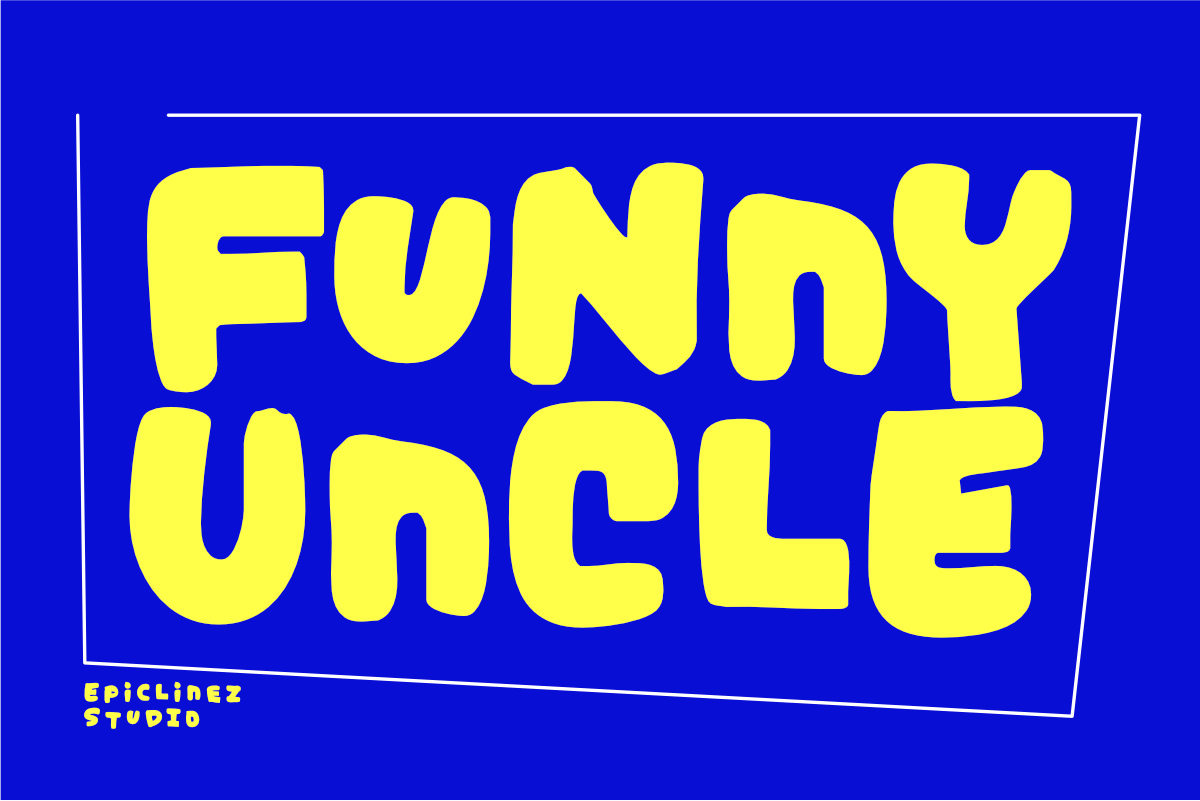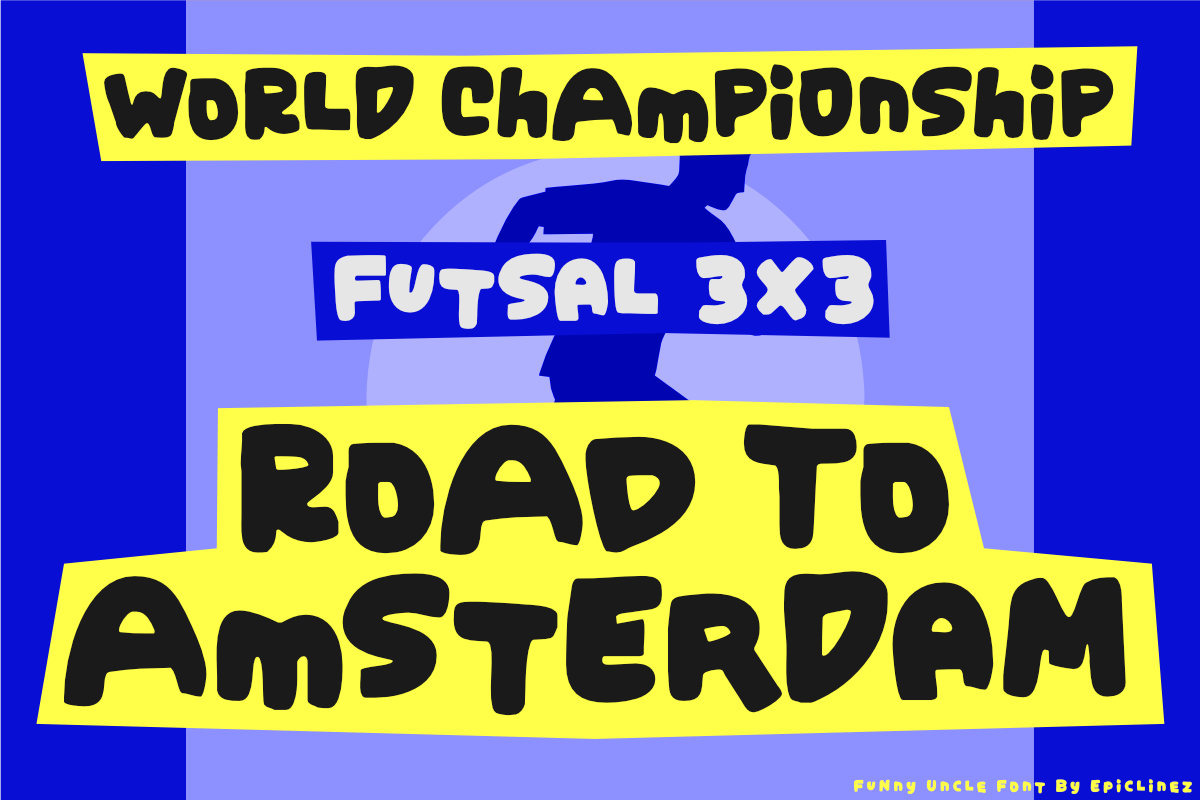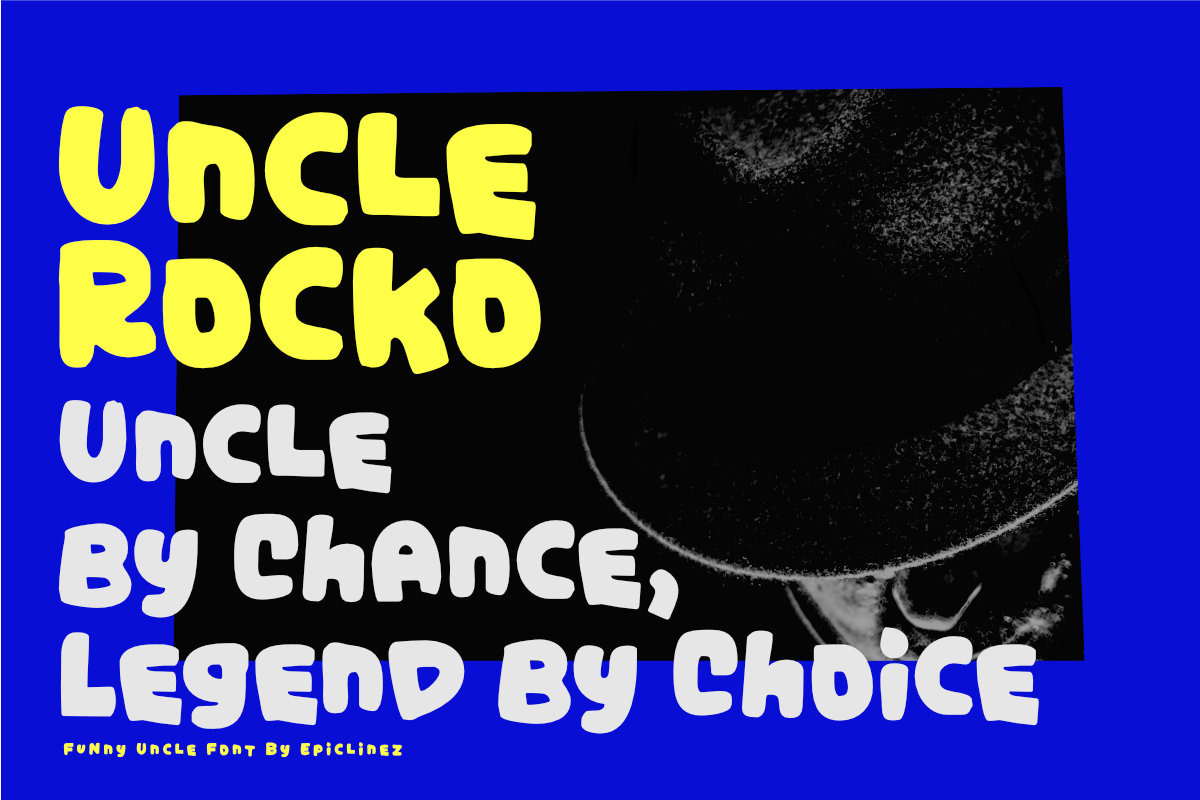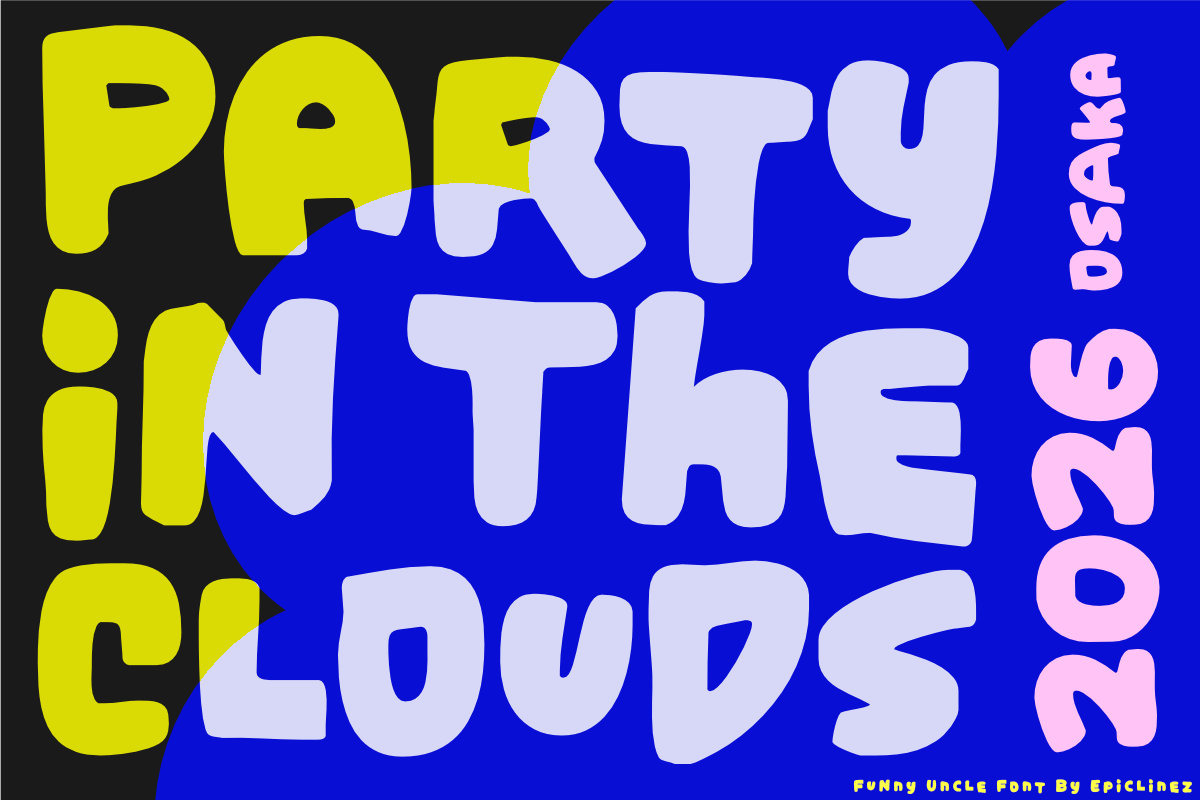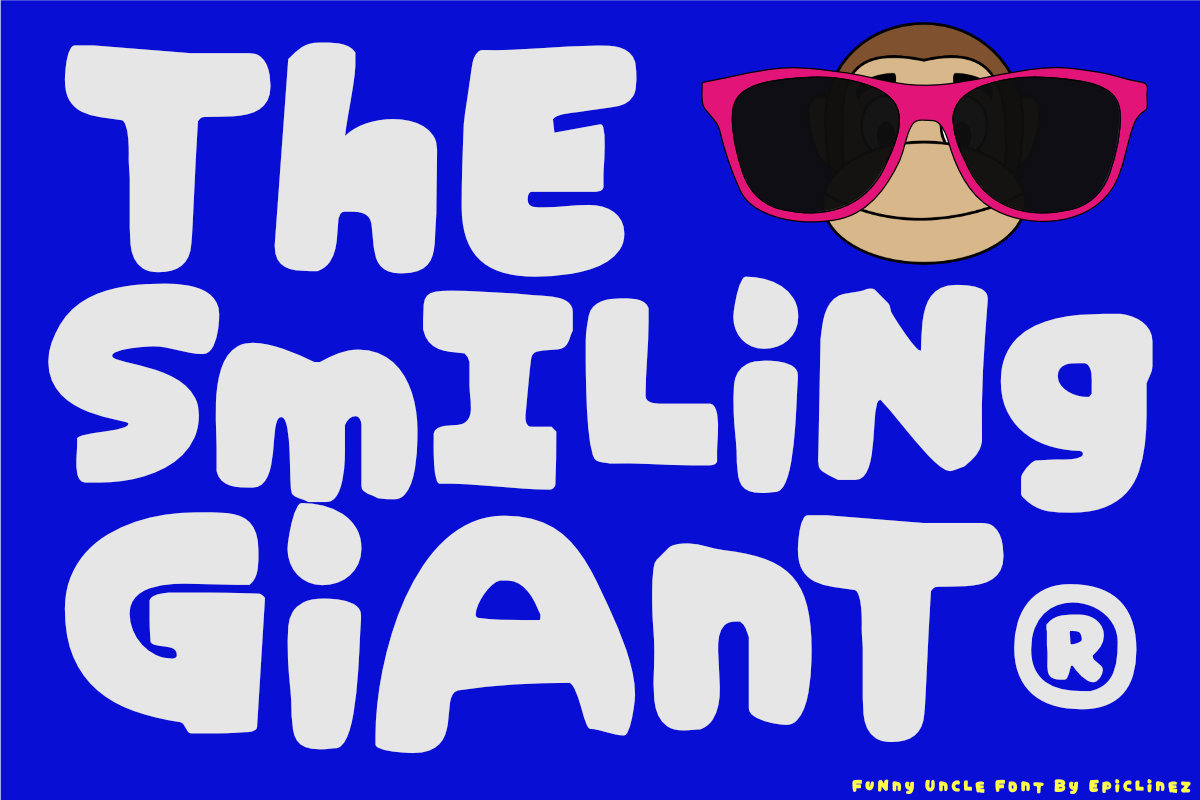
Funny Uncle Display Font
Funny Uncle is a bold, cute display font with a playful personality and a big sense of humor. Designed to feel friendly, goofy, and full of charm, this font brings fun energy to every word—just like your favorite uncle who always makes everyone laugh.
With chunky letterforms, rounded curves, and a warm, expressive style, Funny Uncle is perfect for kids' designs, funny quotes, T-shirts, stickers, posters, social media, logos, packaging, cartoons, and playful branding. Its cheerful look makes it ideal for projects that need to feel lighthearted, joyful, and approachable.
Whether you’re creating apparel, content for kids, or humorous branding, Funny Uncle adds instant smile-power to your typography.